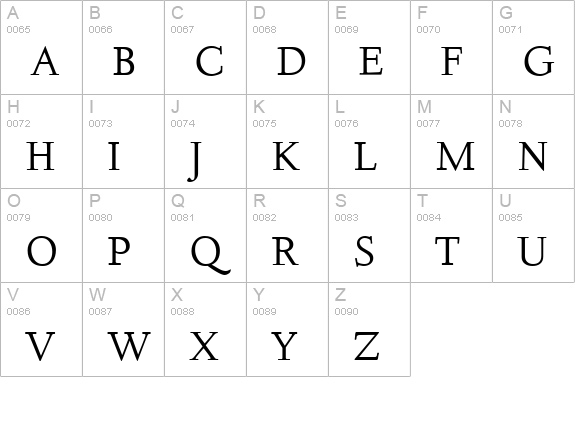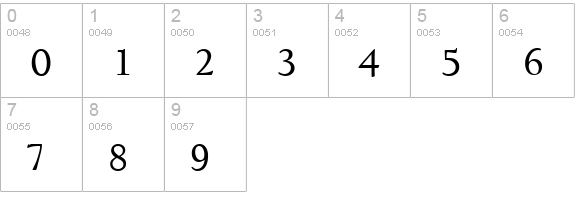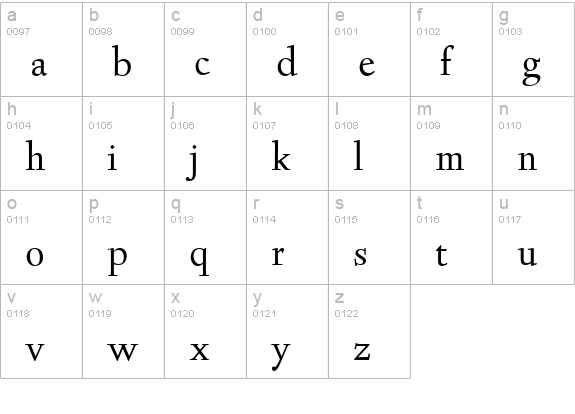
D690-Roman-Regular is the standard, neutral variant in the D690 typeface family \xE2\x80\x94 well suited to general body text, paragraphs, and standard typographic work.
The D690-Roman-Regular font is a classic and elegant typeface perfect for a wide range of design projects. Its sleek lines and understated sophistication make it a versatile choice for both print and digital applications. This timeless font exudes a sense of professionalism and refinement, making it ideal for use in branding, editorial design, and more. The best part? This premium font is available for free download at FontsMarket.com. Don't miss out on the opportunity to add this sophisticated typeface to your font collection without breaking the bank. Get your hands on the D690-Roman-Regular font today and elevate your designs with its timeless charm and versatility.